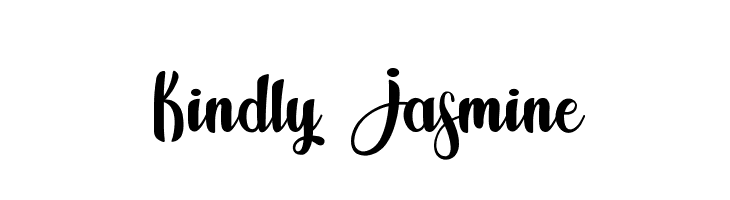
• Kindly Jasmine 字体
( Typhoon Type - Suthi Srisopha - www.typhoontype.net )
A bold, expressive script font with elegant flourishes and a handwritten feel.